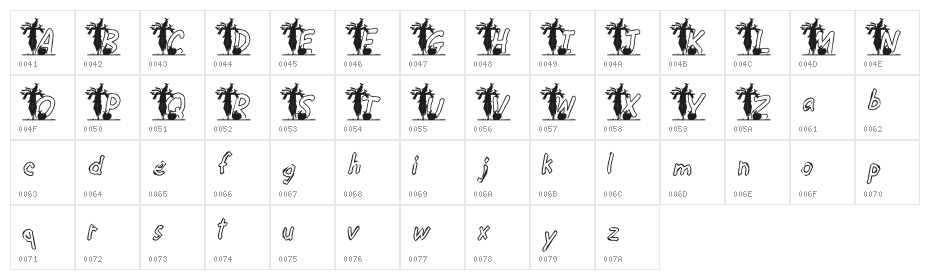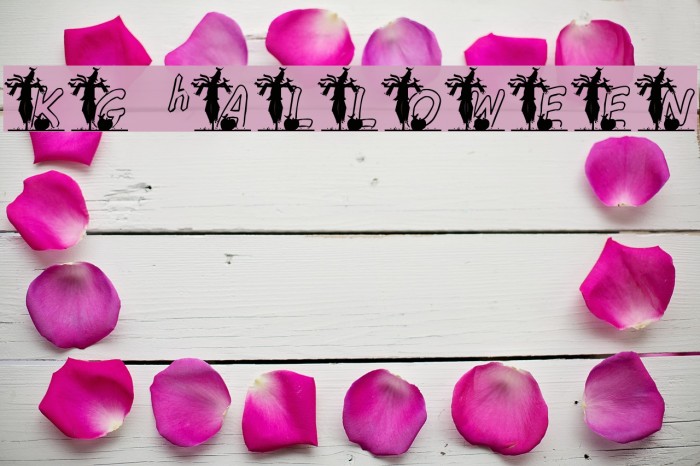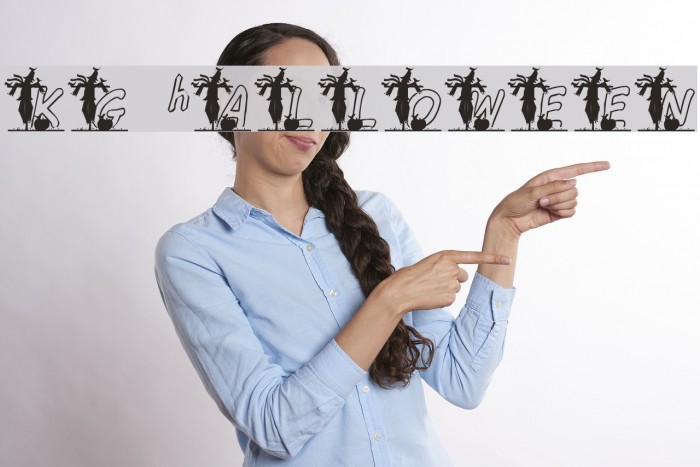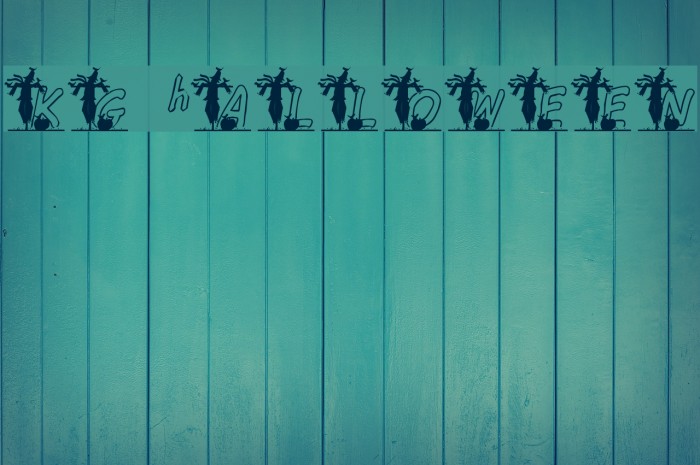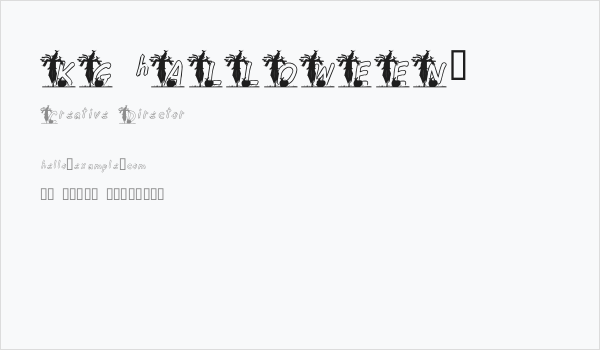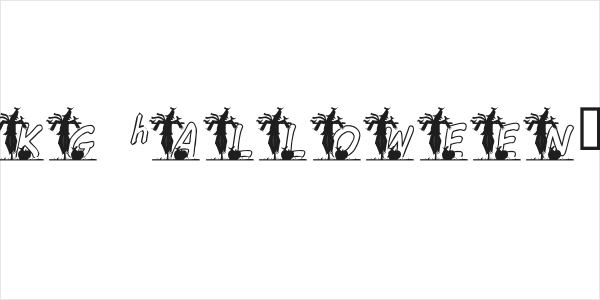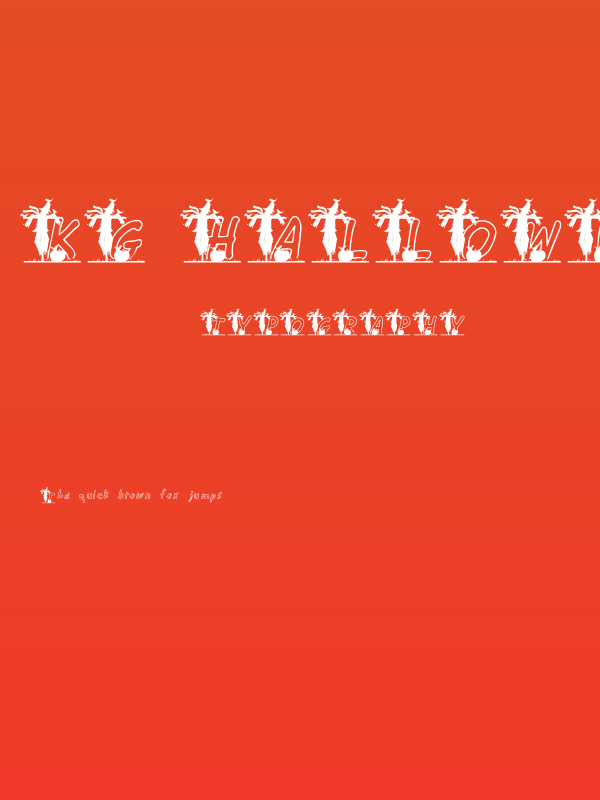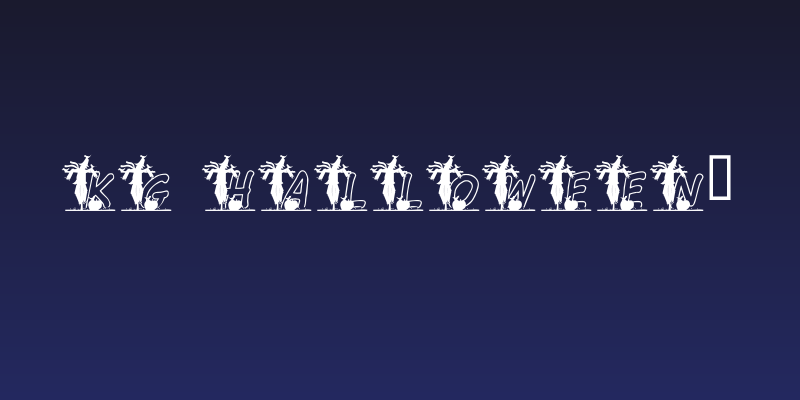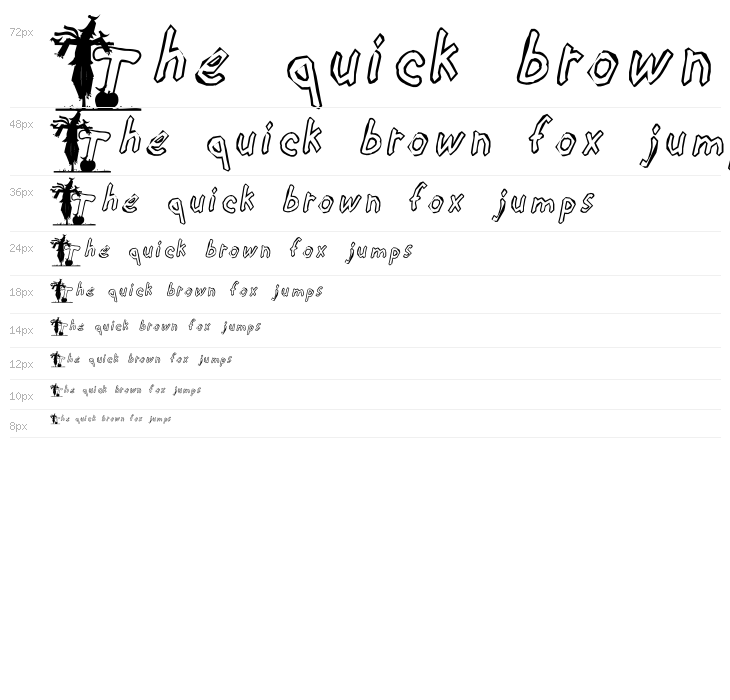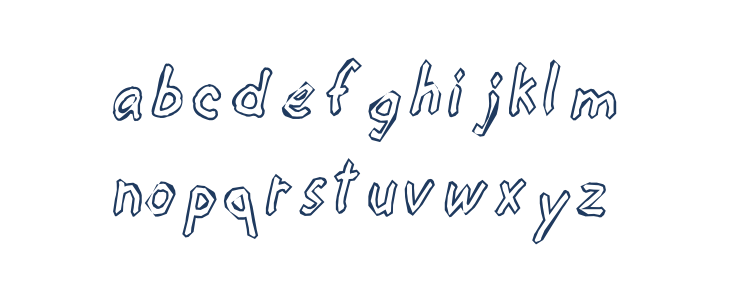
KG hALLOWEEN1 Font
KG hALLOWEEN1 Description
This font features a whimsical and spooky design, perfect for Halloween-themed projects. The uppercase letters are adorned with playful scarecrow silhouettes, adding a decorative and festive touch. The lowercase letters maintain a hand-drawn, slightly irregular style, enhancing the playful and eerie vibe. The numbers and special characters follow the same theme, ensuring consistency throughout. This font is ideal for creating eye-catching headlines, invitations, and posters that require a fun and spooky atmosphere.
KG-HALLOWEEN1 UPPERCASE
KG-HALLOWEEN1 LOWERCASE
KG-HALLOWEEN1 OTHER CHARS
| Proposed Projects | Ideal for Halloween invitations, themed posters, party decorations, and festive banners. |